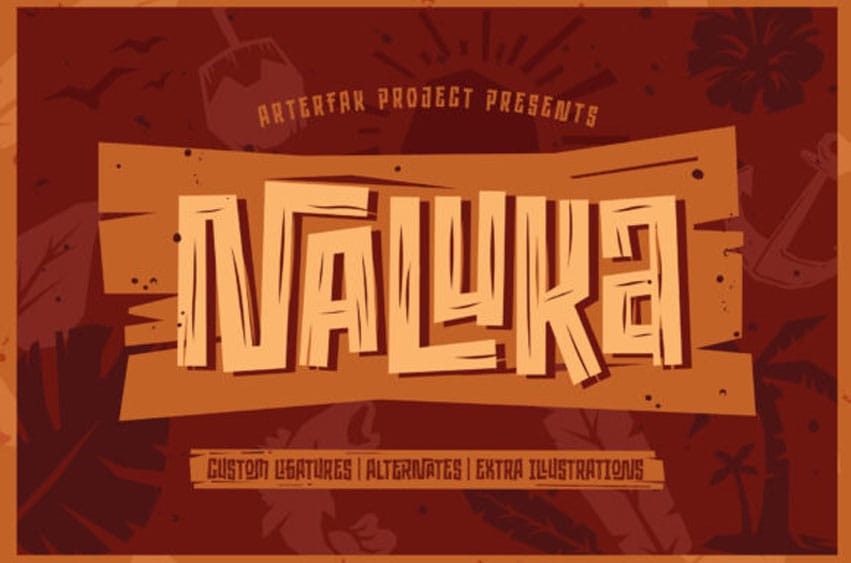
Naluka Font is a cool, thick lettered and cartoon-like duo font (dingbats and display).
This font is perfect for children themed designs, especially when combined with bright colors. Naluka is PUA encoded which means you can access all of the glyphs and swashes with ease!